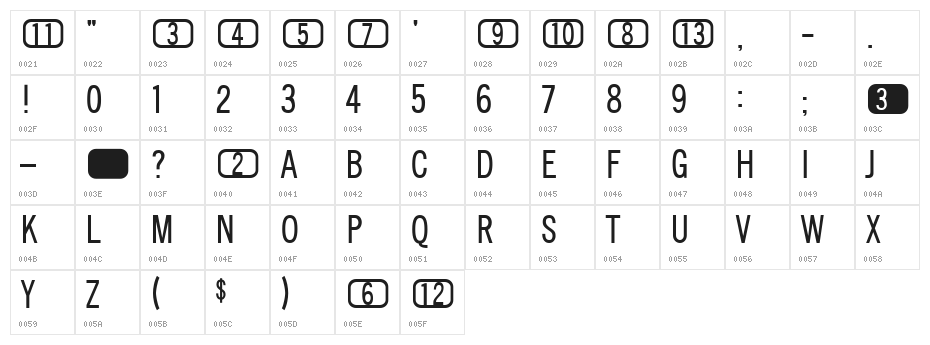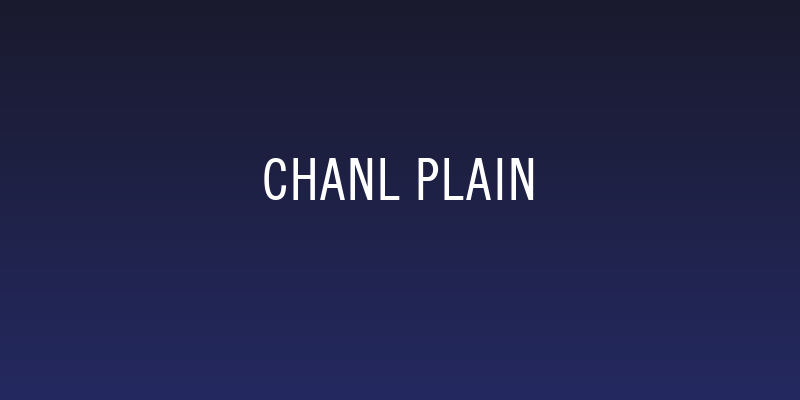
CHANL Plain Font
CHANL Plain Description
This font features a clean and modern design with a geometric structure. The characters are evenly spaced and maintain a consistent height, giving it a uniform appearance. The uppercase letters are bold and assertive, while the lowercase letters maintain a similar width, ensuring readability. The numbers are clear and distinct, making them suitable for various applications. Special characters are designed to match the overall style, providing a cohesive look across all elements. This font is versatile, suitable for both digital and print media.
| Use Case | Headlines, Body text, Logos |
| Proposed Projects | Ideal for branding, digital interfaces, print media, and signage. |